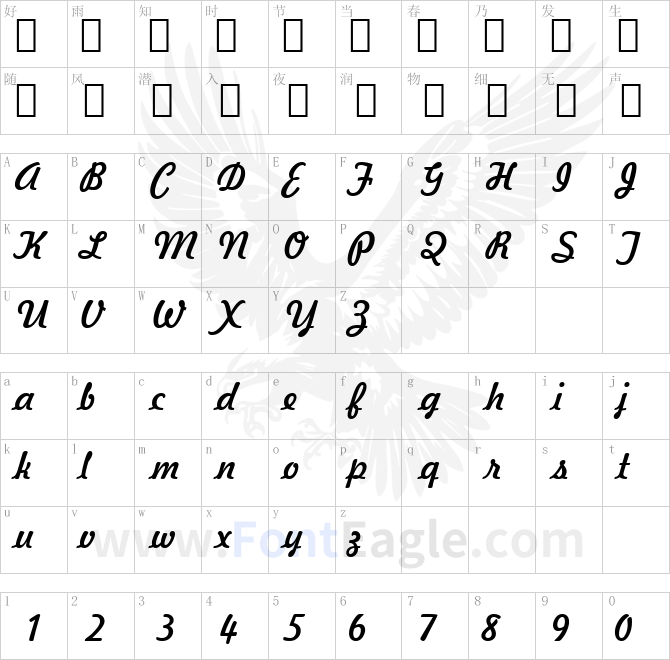
Freehand521-BT-copy-1- is a great font, widely used in graphic design, single-page menu design, poster design and other fields, and is deeply loved by designers.Freehand521-BT-copy-1- download.